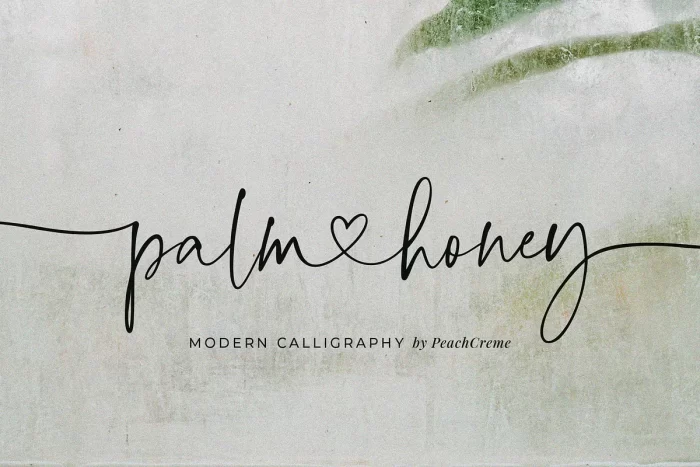
Palm Honey beautifully works for modern wedding stationery projects. Palm Honey has beginning lowercase, ending lowercase, connecting heart lowercase alternates.